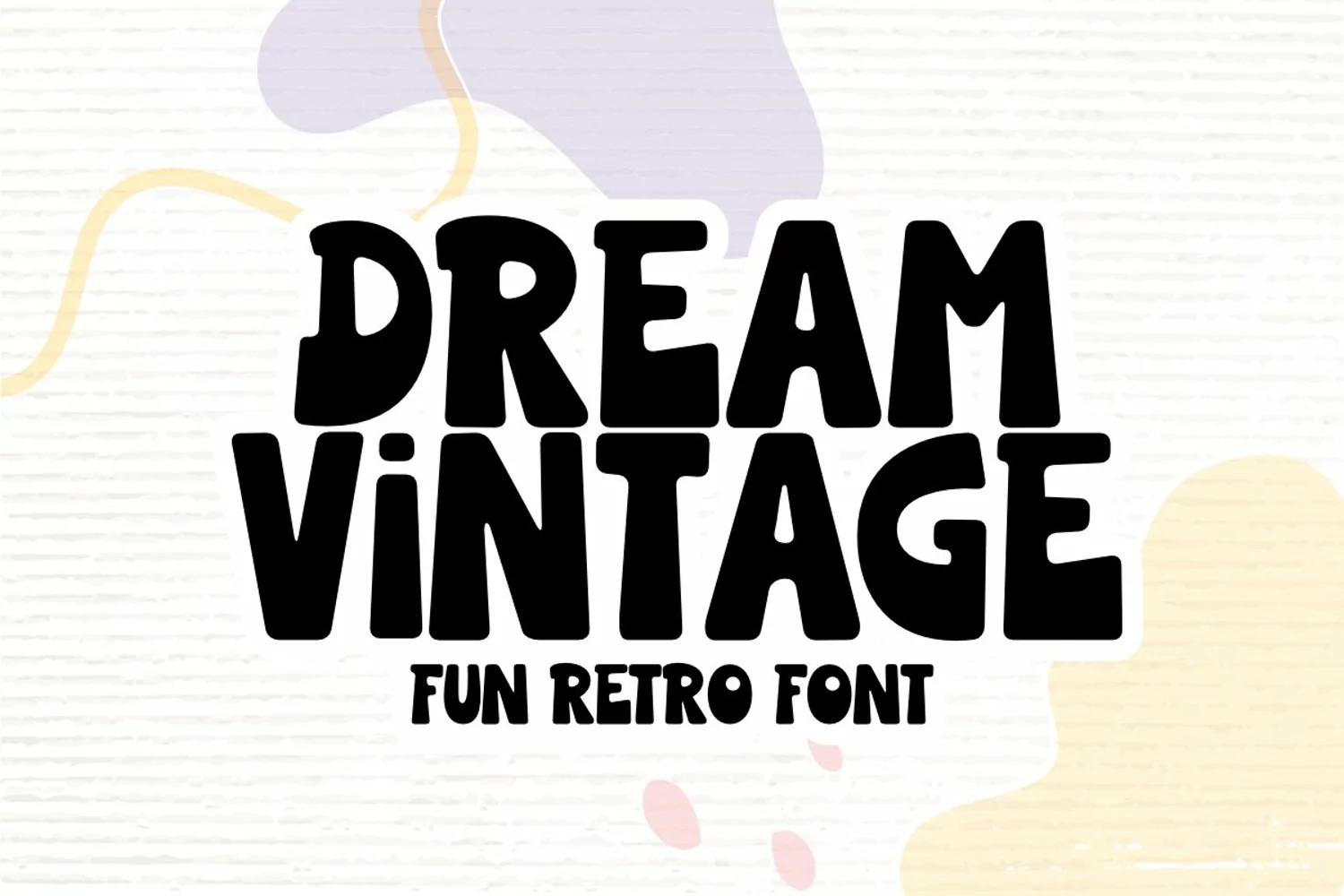
Introducing " Dream Vintage "
Dream Vintage - Fun Retro Font
You Can Mix And Match for Your Awesome Project
This fonts is ideal for crafting, branding and decorate your any project. This fonts are perfect for wedding invitation or your blog. Also with their help, you can create a logo or beautiful frame for your home. Or just use for your business, book covers, stationery, marketing, magazines and more.